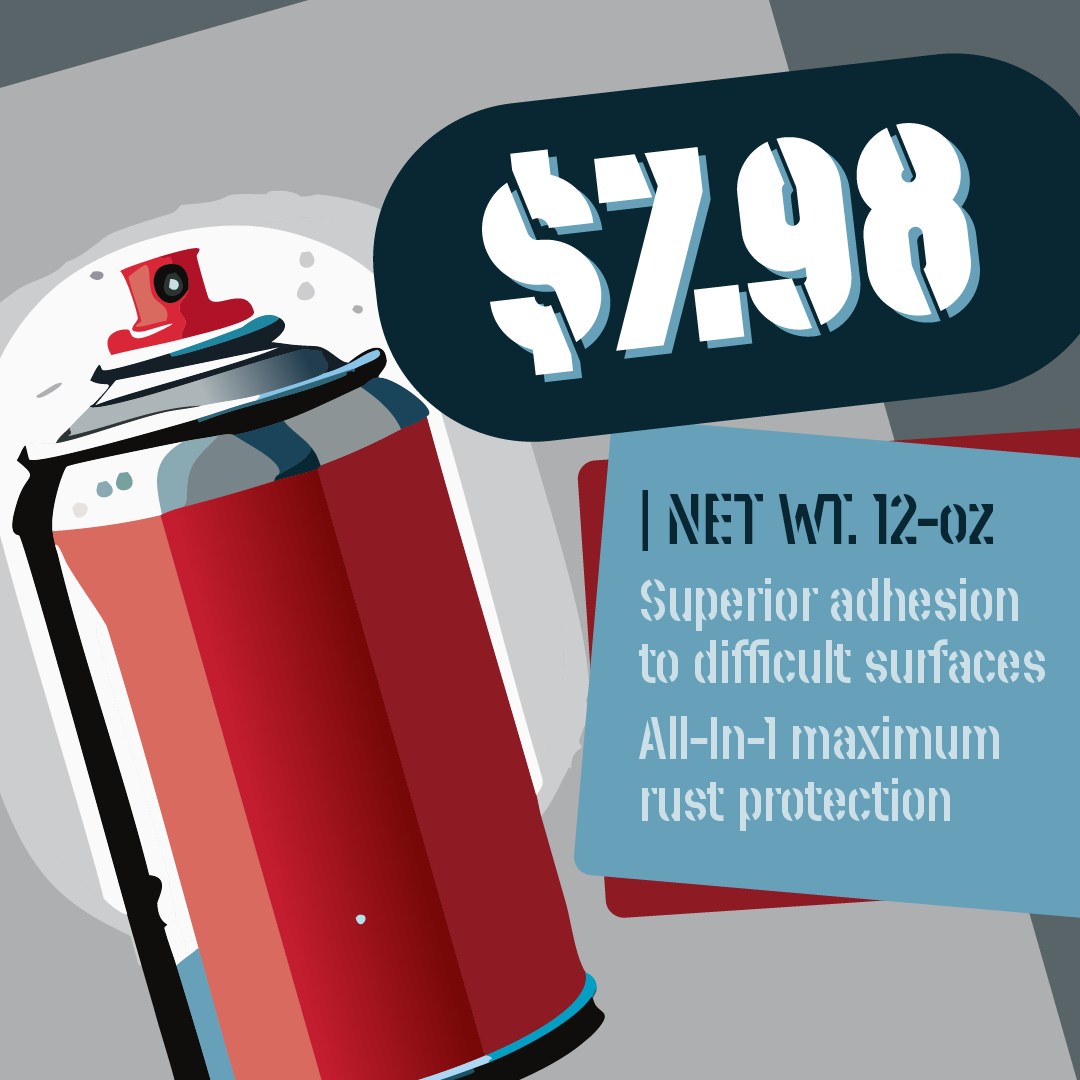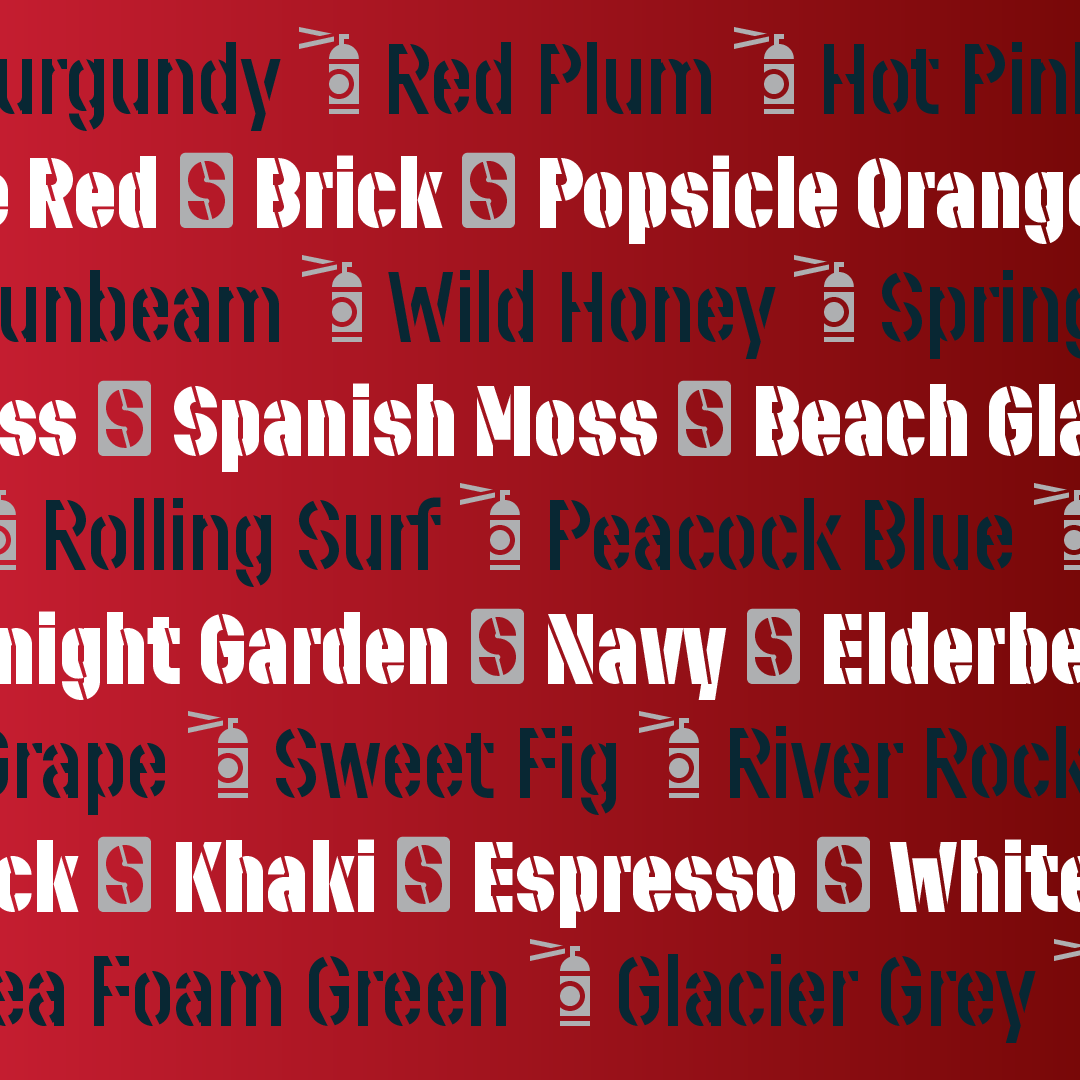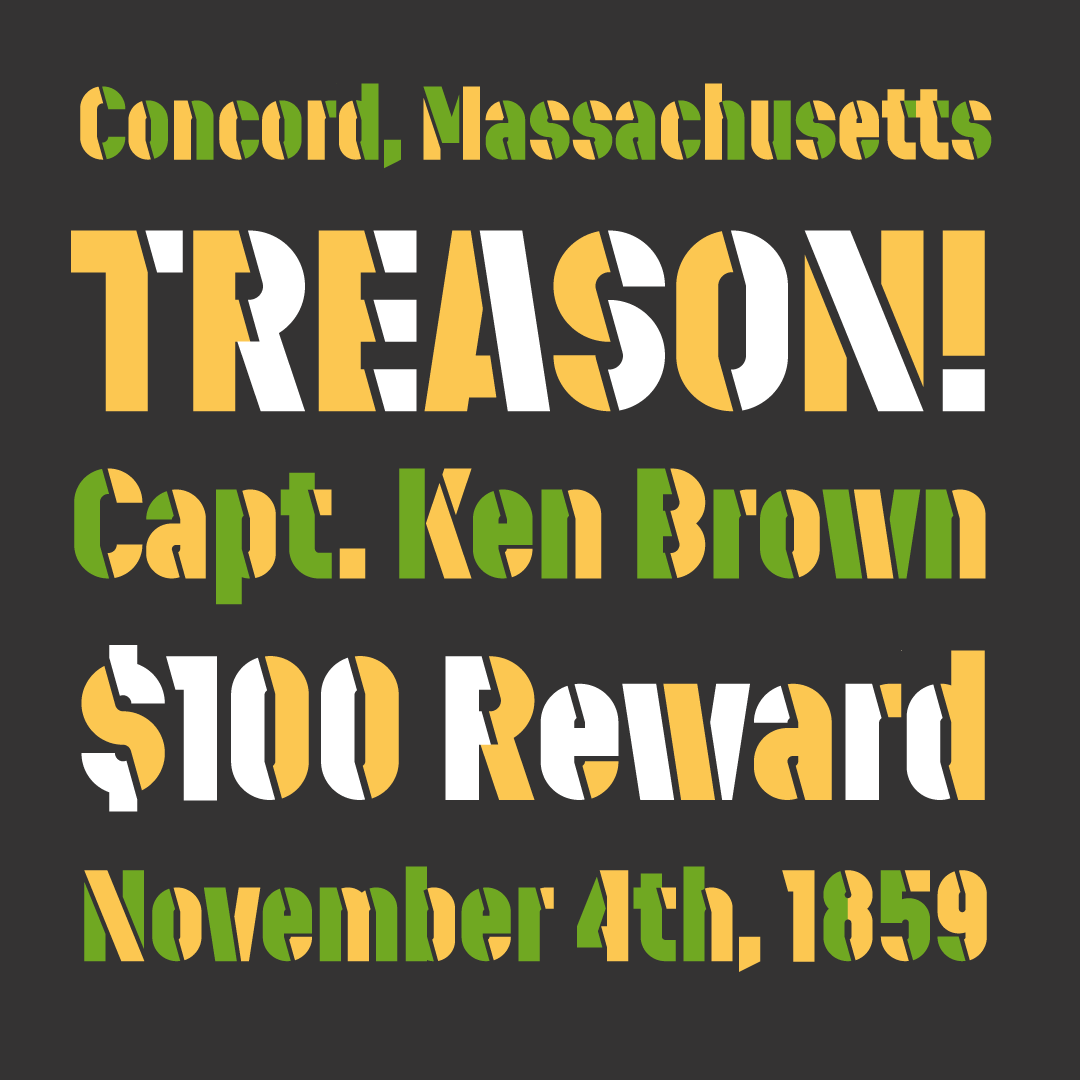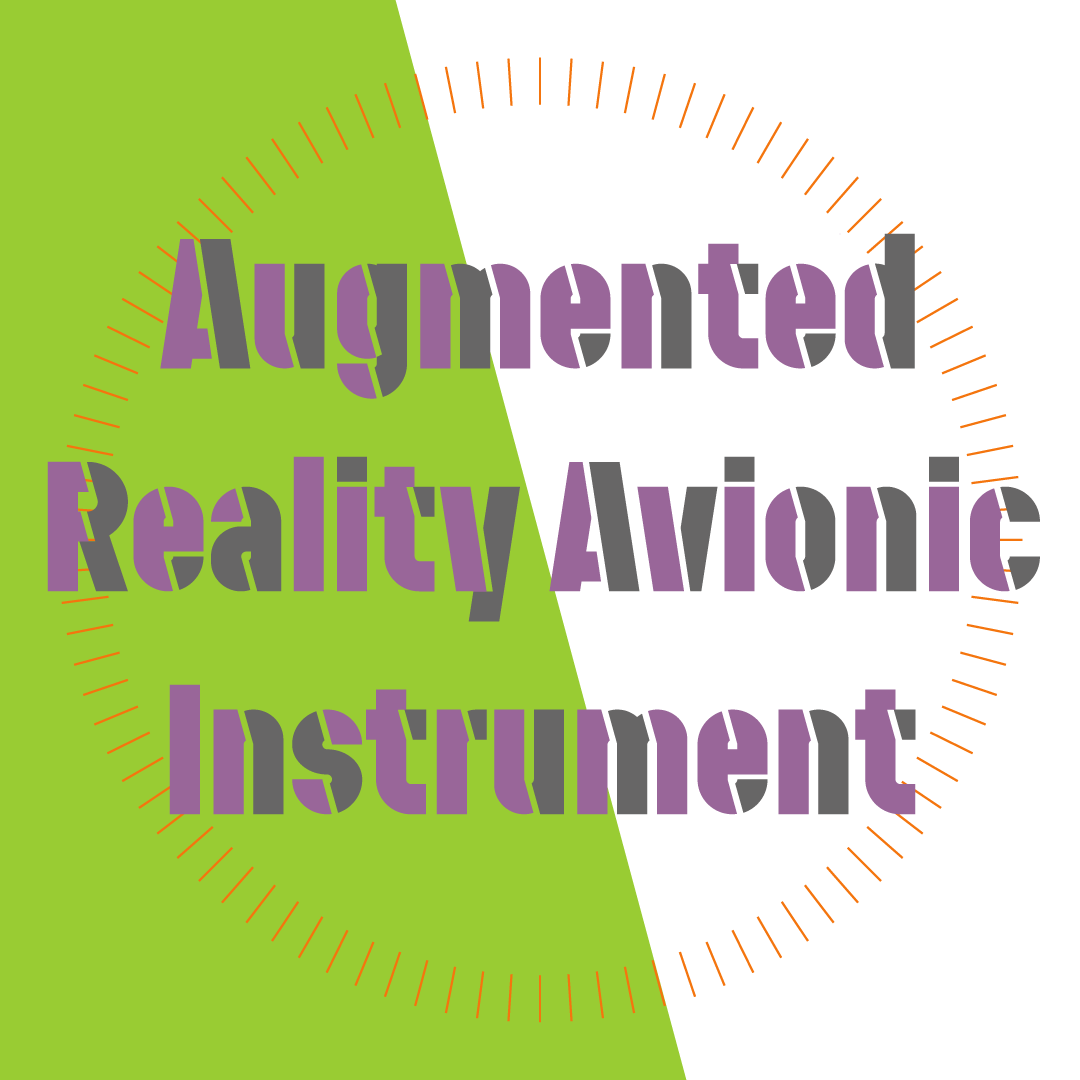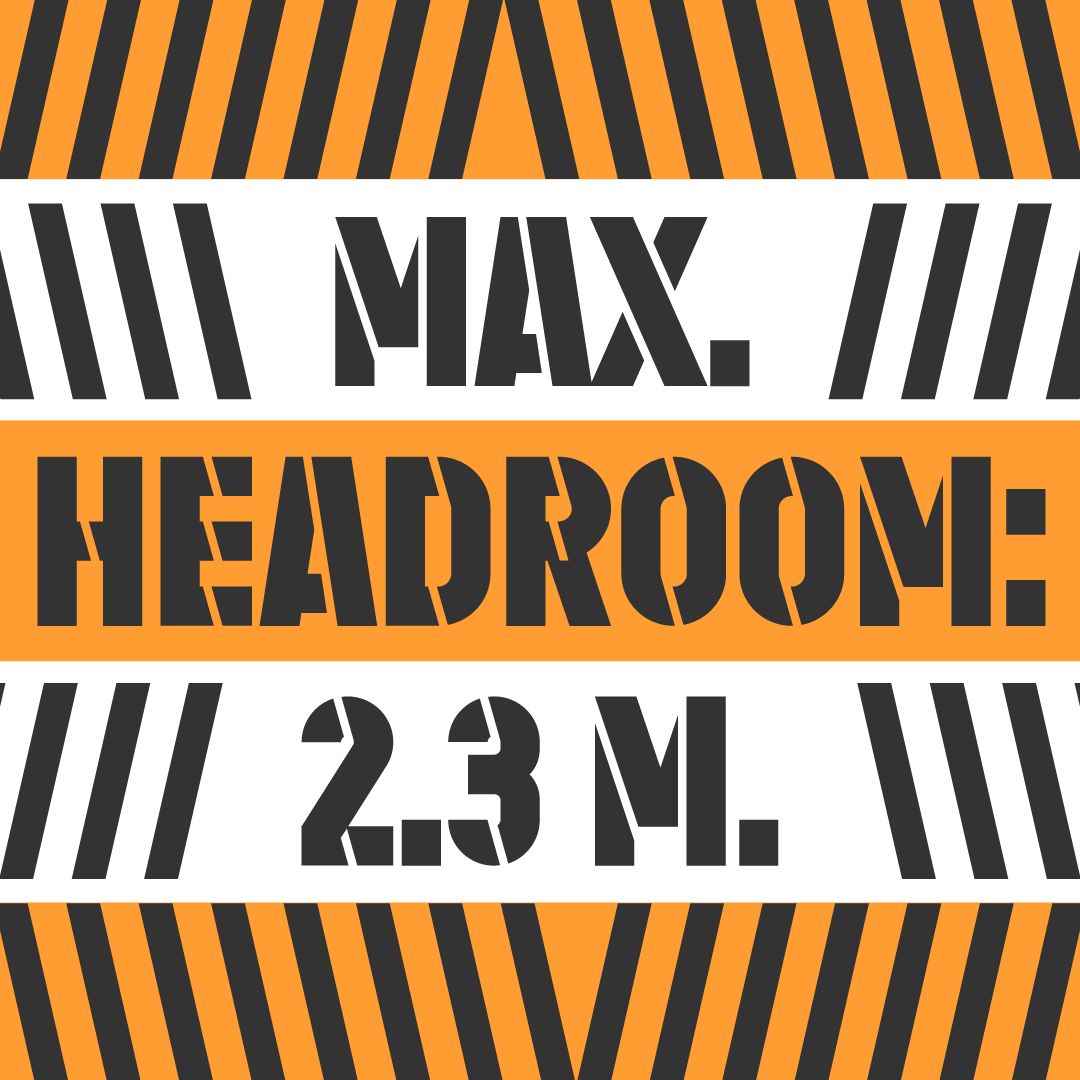
Stenciletta
A mission-ready, innovative
stencil type family.
Designed by Joachim Müller-Lancé
For a chromatic effect, layer the Left and Right versions of Stenciletta in Regular or Bold. Here's how:
Step 1.
Create a new layer using Stenciletta Regular Left. -
Step 2.
Copy the first layer, creating a new one in the same position. Change the font to Stenciletta Regular Right. -
Step 3.
Change the color of the font on each layer as you please. That's it, bill the client now.
Stenciletta by Joachim Müller-Lancé is a monolinear type design with bridges (the little gaps) placed where thinner lines would otherwise be. Evoking an air of mechanical engineering, construction, and cargo shipping, the distinctive slanted bridges of Stenciletta are parallel to the downstrokes, lending an interesting consistent texture somewhat like diagonal stripes.
Embracing the endearing aesthetic of having been created by engineers, like many early signage alphabets were, Stenciletta is constructed strictly from circles and straights in a limited set of angles on a square grid, without overshoot.
The Stenciletta family includes Regular and Bold weights with two-color and solid versions of both weights (eight fonts total).
Features
Additional features include: Kerning, Standard Ligatures, Ordinals, and Case-Sensitive Forms.